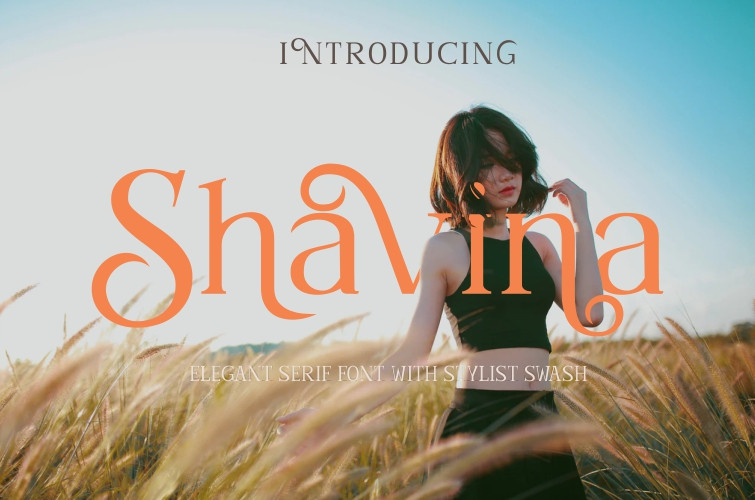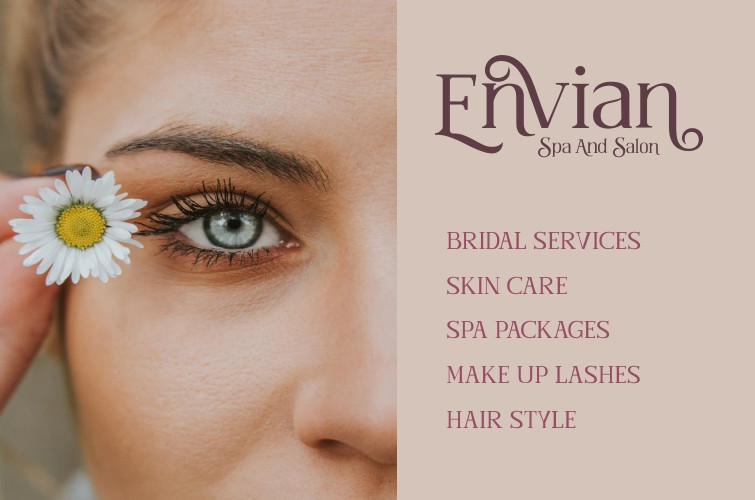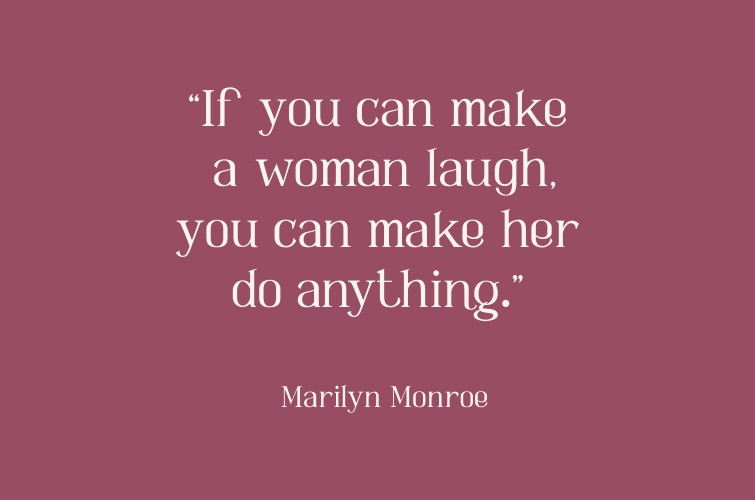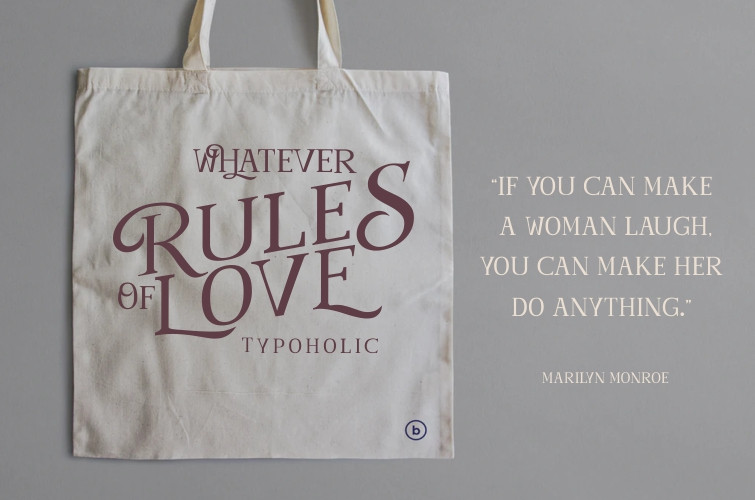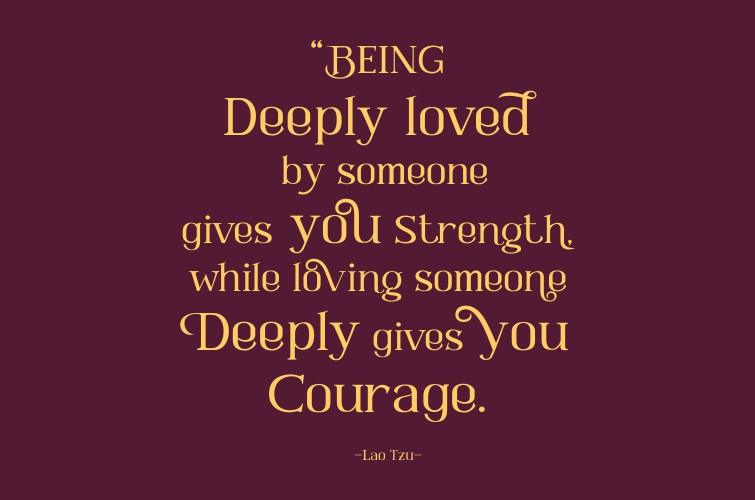
Shavina Serif Font
Shavina Serif are fonts that are made with elegant feminine pretty concepts and have alternatives with beautiful swash curves for the purpose of being used as logotypes, text quotes, logo designs for beauty products, and elegance that can also be applied to other property products.
font features like:
Opentype
Ligature
Salt
SS01-SS03